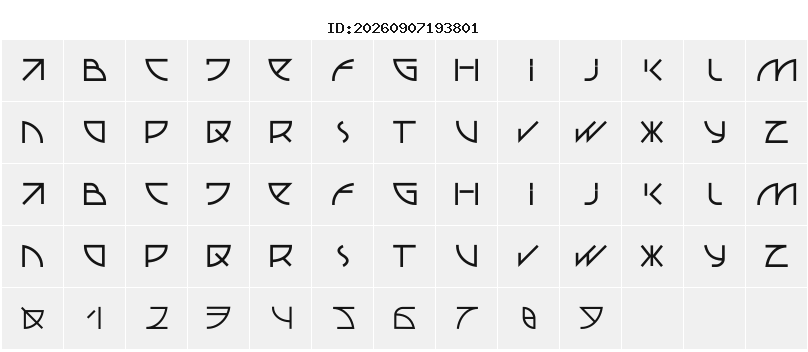
UUBA Preview
• Font Name: UUBA
• Font Style: Straight
About UUBA.ttf
UUBA.ttf is a modern, elegant sans-serif font designed for ultimate readability and visual harmony. Perfect for branding, headlines, web design, and print materials.